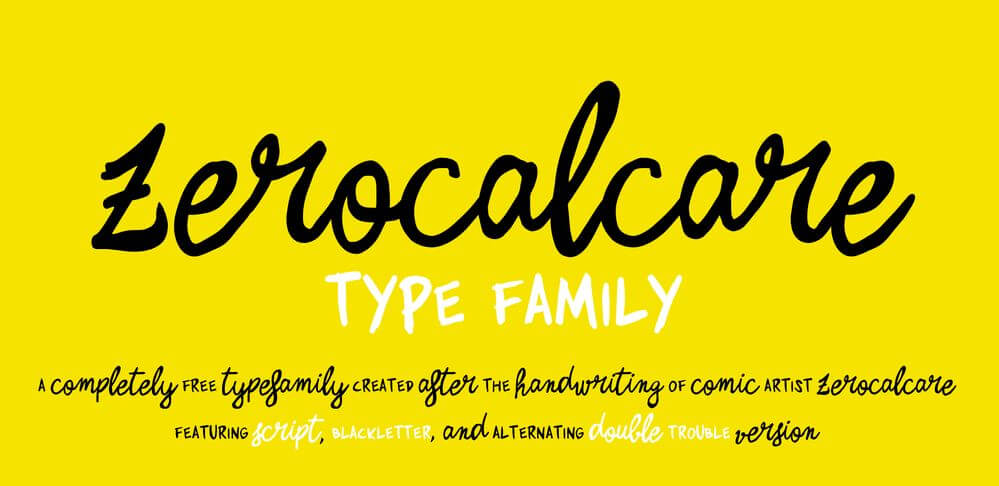
Zerocalcare Script Font Family
Zerocalcare Script Font Family is a typeface circle of relatives created for the branding of the Lucca Comics & Games Festival 2016. It's based on the digitized handwriting of Italian comic artist Zerocalcare. And it makes use of open type substitutions to mimick the waft of real handwriting.